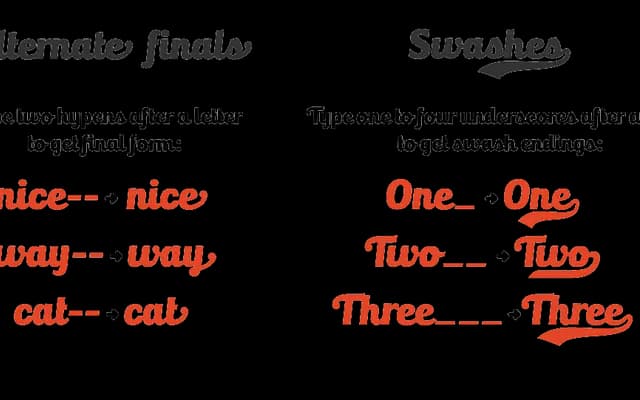
Bulletto
Zetafonts · Cosimo Lorenzo Pancini · 2015
A connecting display script from Cosimo Lorenzo Pancini, built for logos and headlines with a slight slant, large x-height and an extensive set of OpenType alternates.
The family spans five styles across two optical approaches: a slanted connecting script in Light and Regular, an upright Straight variant in the same weights, and Bulletto Alto with taller ascenders and descenders for a more calligraphic feel. OpenType features include standard ligatures, swashes, terminal forms and a full set of stylistic uppercase alternates. Coverage extends to 197 languages across the Latin script with 461 glyphs per style.
A connecting display script with a slight slant and large x-height, designed explicitly for logos and headlines rather than body text, placing it firmly in the display script category.